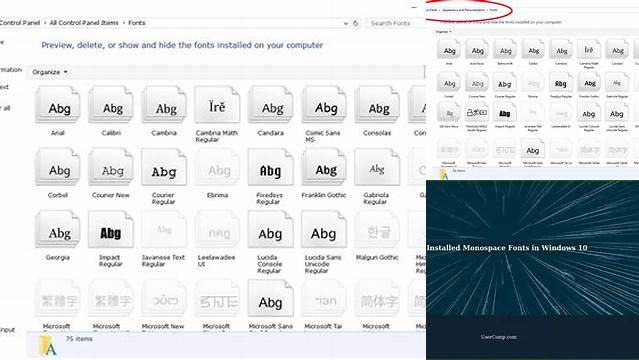
Windows 10 System Fonts: A Comprehensive Guide
Hey guys! Ever wondered about those beautiful fonts that make Windows 10 look so sleek? Or maybe you're a designer needing to dive into the system fonts folder for a project? Well, you've come to the right place! This comprehensive guide will walk you through everything you need to know about Windows 10 system fonts, from finding the folder to managing and even troubleshooting common font issues. Let's get started!
Understanding Windows 10 Fonts
Before we jump into the nitty-gritty of the system fonts folder, let's take a moment to understand what fonts are and why they're so important. In the context of Windows 10, fonts are the visual representation of text on your screen. They dictate the style and appearance of everything from your documents to your web pages. Different fonts can evoke different emotions and create unique visual identities. So, understanding Windows 10 fonts is crucial for both everyday users and design professionals.
What are Fonts?
Fonts are essentially digital typefaces, each with its own unique design and characteristics. They're like the different handwriting styles we all have – some are elegant and formal, while others are playful and casual. Fonts consist of a set of characters, including letters, numbers, punctuation marks, and symbols, all designed to work together harmoniously. They come in various file formats, such as TrueType (TTF), OpenType (OTF), and others. The type of font determines both its appearance and how well it works across different devices and applications. For example, OpenType fonts often offer more advanced typographic features than TrueType fonts.
Why are Fonts Important in Windows 10?
Fonts play a vital role in the overall user experience of Windows 10. They influence readability, aesthetics, and branding. Imagine reading a lengthy document in a font that's difficult to decipher – frustrating, right? A well-chosen font can make all the difference. Windows 10 fonts also contribute to the visual appeal of your desktop, applications, and web browsing. For designers, fonts are an essential tool for creating consistent and professional-looking designs. Whether you are creating a presentation, writing a report, or designing a website, the choice of font greatly affects the message conveyed and the audience's impression.
Default Fonts in Windows 10
Windows 10 comes pre-loaded with a set of default fonts, designed to provide a balanced and visually appealing experience right out of the box. These default fonts include classics like Arial, Times New Roman, and Calibri, which are widely used and compatible across different applications and platforms. However, Windows 10 also includes modern fonts like Segoe UI, which is the system's primary font, offering a clean and legible appearance. These fonts are chosen for their readability and versatility, ensuring that text is clear and crisp across various screen resolutions and sizes. Understanding the default Windows 10 fonts is a good starting point for knowing what resources are available to you.
Method 2: Through the Control Panel
Another way to access the fonts folder is through the Control Panel. This method is a bit more traditional, but it's still a valid option:
- Open the Control Panel (you can search for it in the Start menu).
- Click on "Appearance and Personalization."
- Click on "Fonts."
- You'll be taken directly to the system fonts folder. Using the Control Panel might be preferable for users who are more familiar with this interface. This method also gives you access to other customization options related to appearance and personalization.
Method 3: Using the Run Command
For a faster way, you can use the Run command. This is a quick shortcut for opening the fonts folder:
- Press the Windows key + R to open the Run dialog box.
- Type
fontsand press Enter. - The fonts folder will open instantly. This method is the quickest and most efficient way to access the Windows 10 system fonts folder, especially if you need to get there frequently.
Managing Fonts in Windows 10
Now that you know how to get to the fonts folder, let's talk about managing the fonts within it. Managing fonts effectively can help keep your system running smoothly and ensure you have the right fonts available for your projects. Knowing how to manage Windows 10 fonts will not only keep your system organized but also help you optimize performance and personalize your user experience.